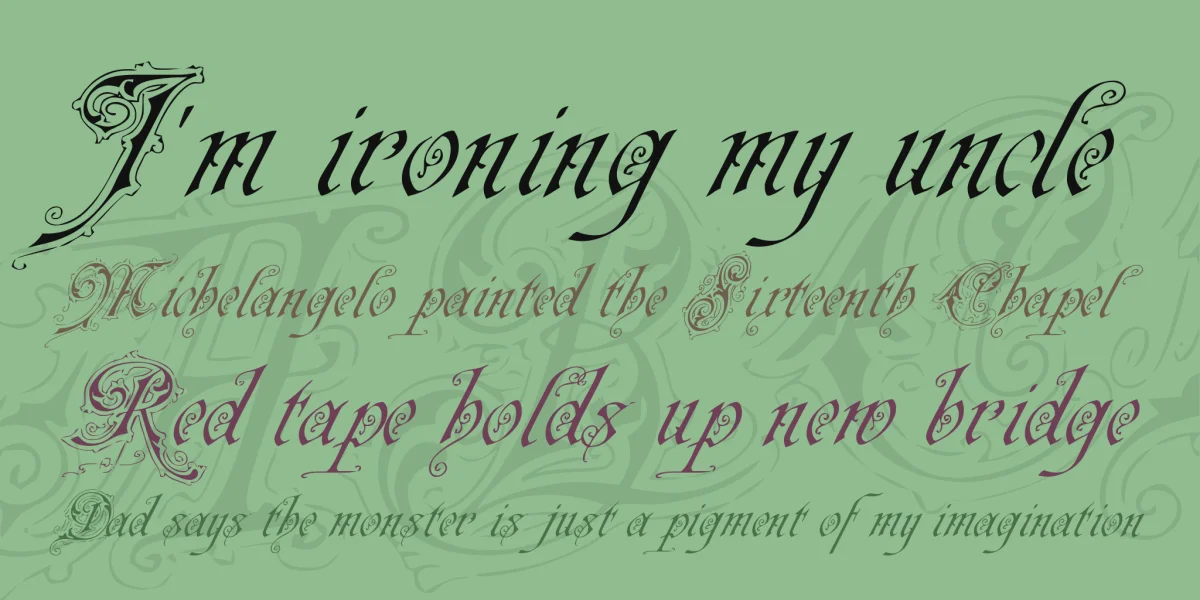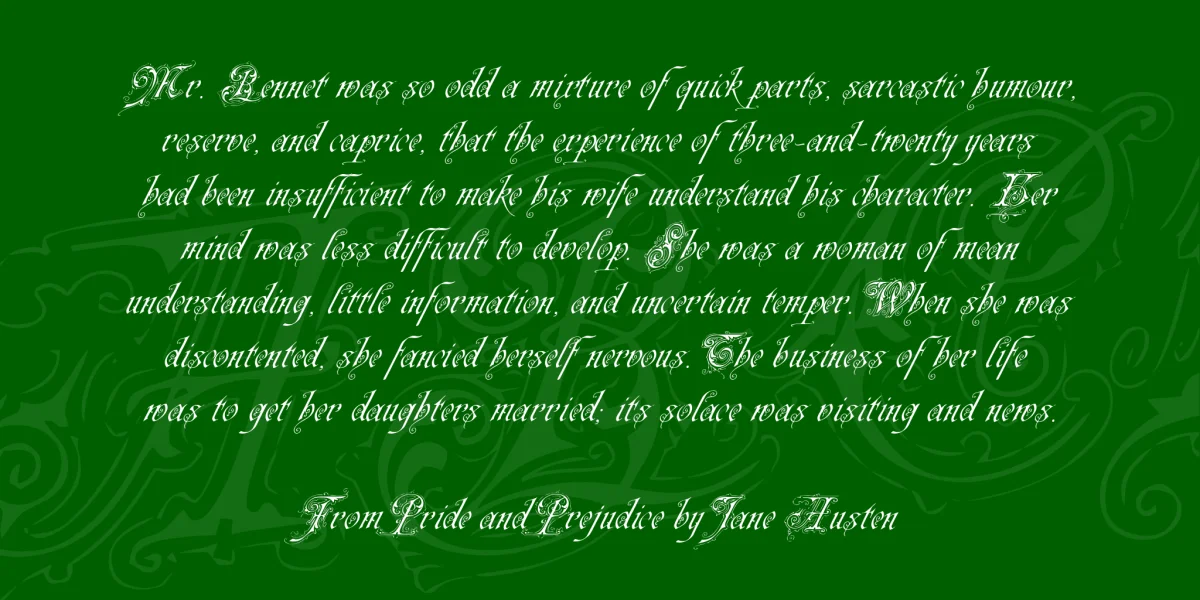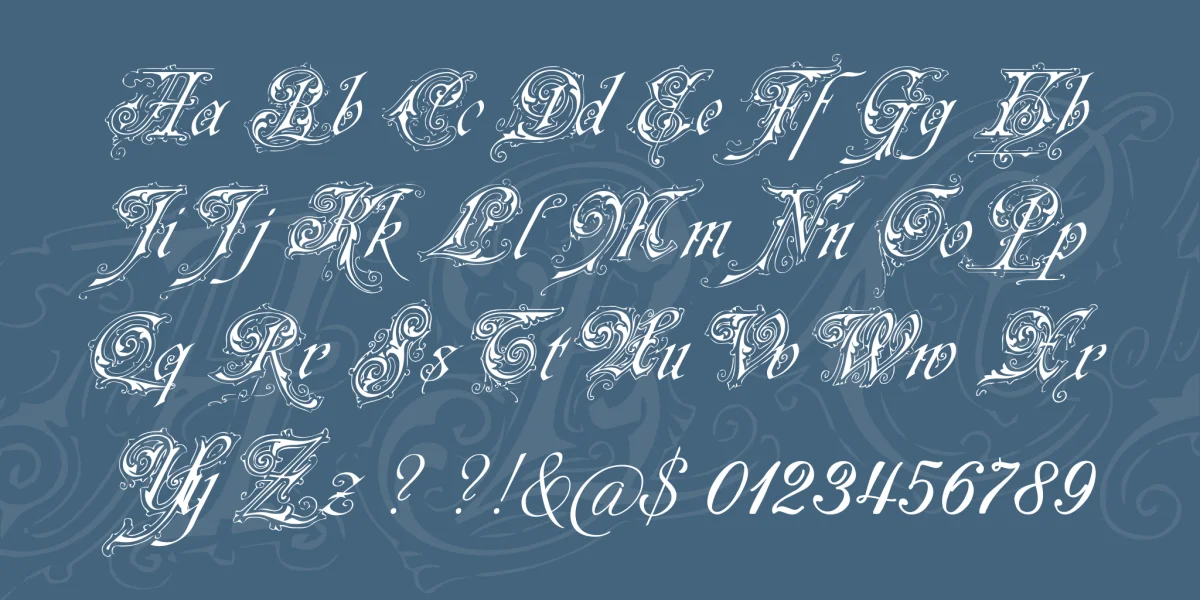
The "Neue Zier Schrift" is one of those typical extremely ornate fonts of the promoterism period in 19th century. One often saw such lettering on signs of shops and restaurants. The font is suitable only for short texts and headlines. Please donate if you like the font!